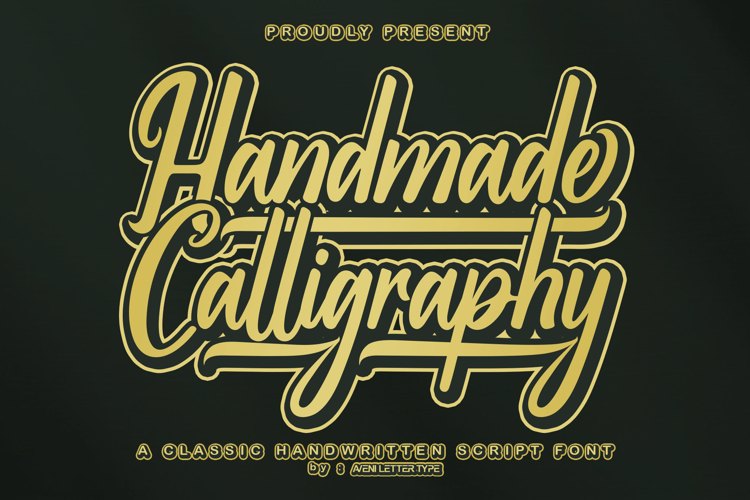
Handmade Calligraphy Font
Handmade Calligraphy is a classic script font that is stylish and has a very neat kerning. Expertly designed to make your creations look amazing, this font will look great on various ideas. Use them to get creative in outfits, wedding invitations, business cards, t-shirt branding, pouch or bag branding, social media posts good, and more! Handmade Calligraphy is PUA encoded, which means you can access all glyphs and swashes with ease!